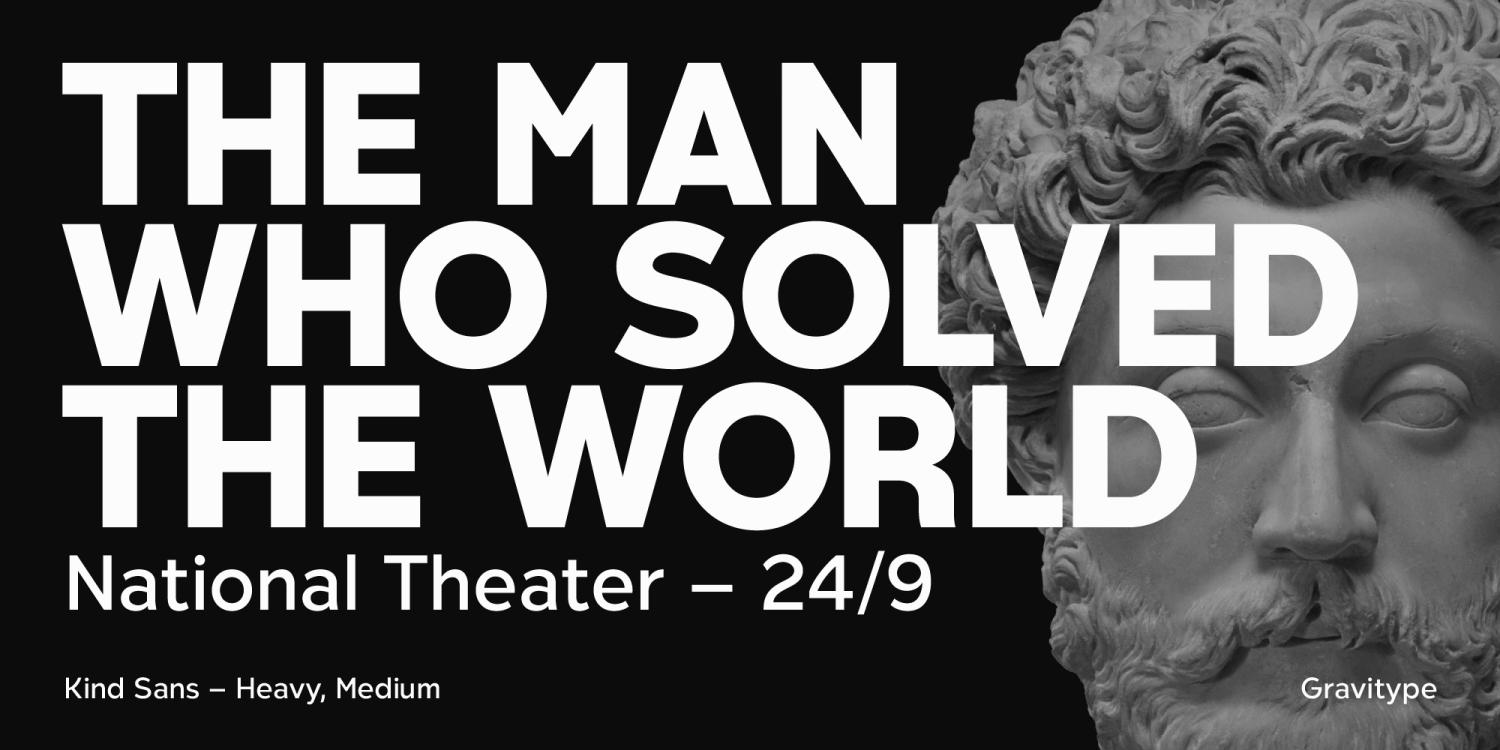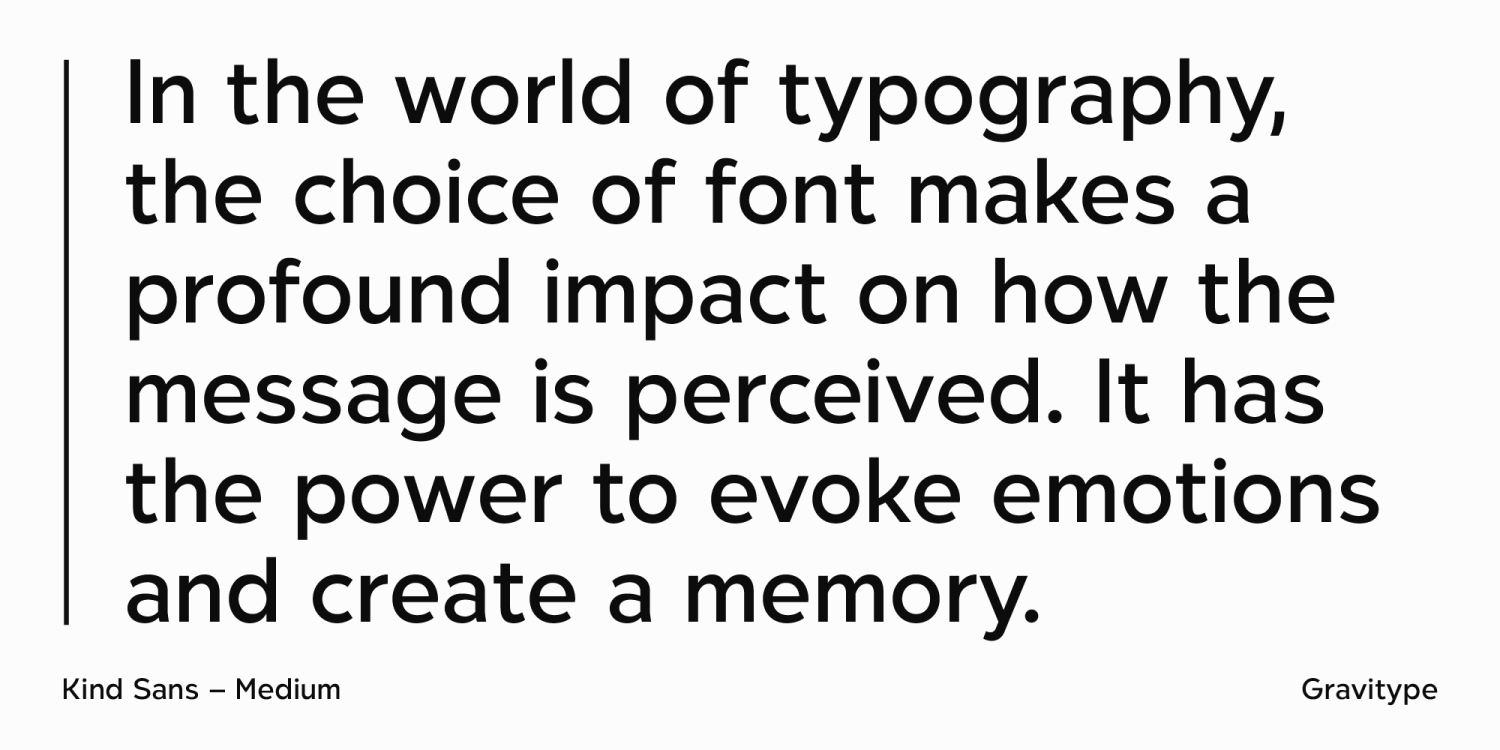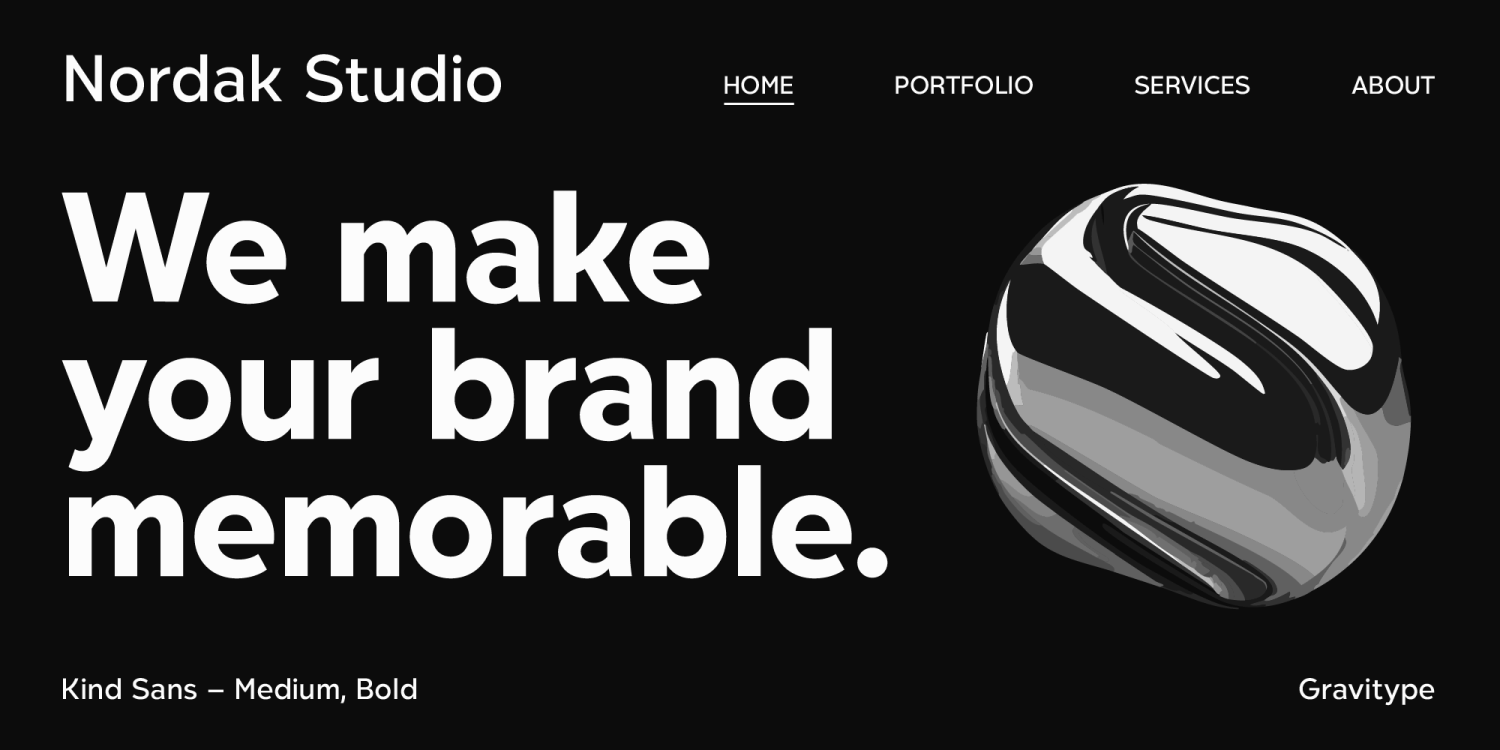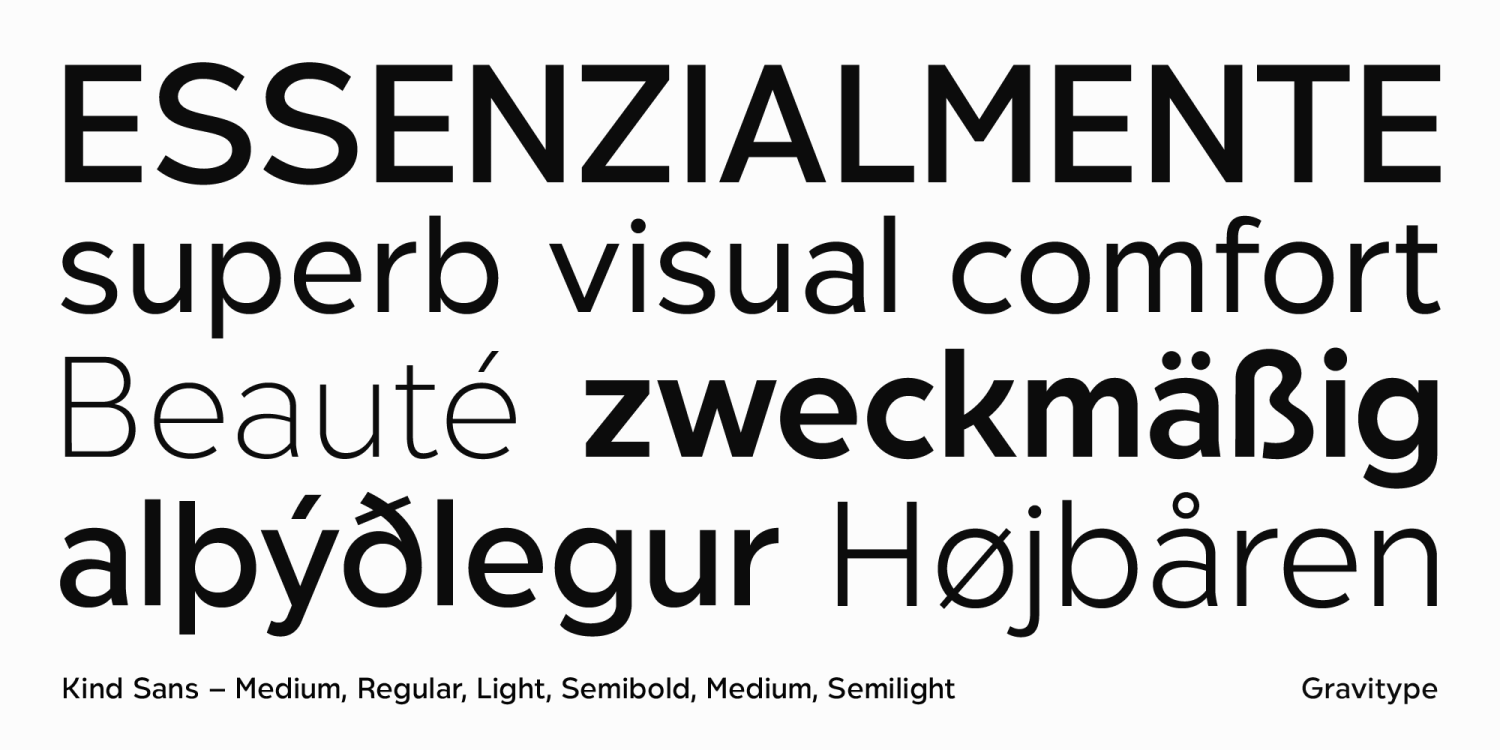
About Kind Sans
Kind Sans is a refined sans serif designed to be easily approachable. With its clean lines and gentle curves, Kind Sans radiates an inviting appearance that adds a touch of humanity to any text. Legibility and visual comfort are at the heart of this typeface,…